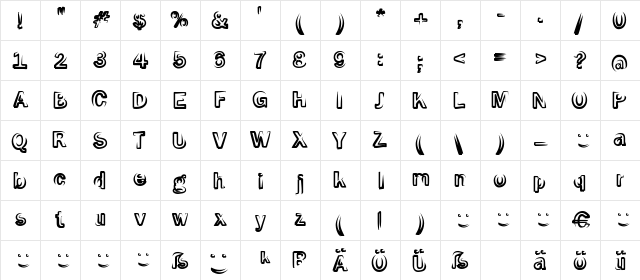
SMoKeScreen Regular
Design Context for SMoKeScreen Typeface
SMoKeScreen is a composed and adaptable typeface that performs quietly and consistently across a wide range of design contexts.